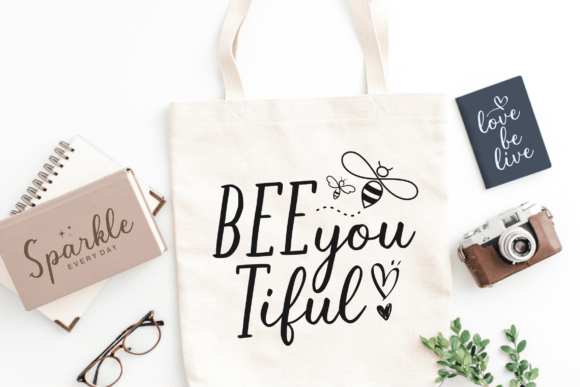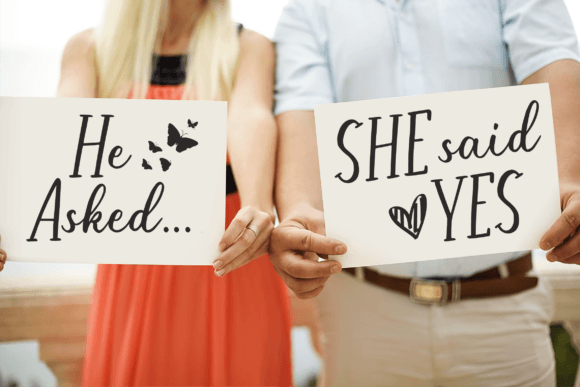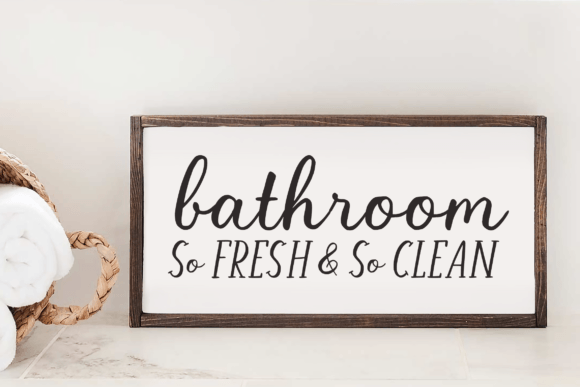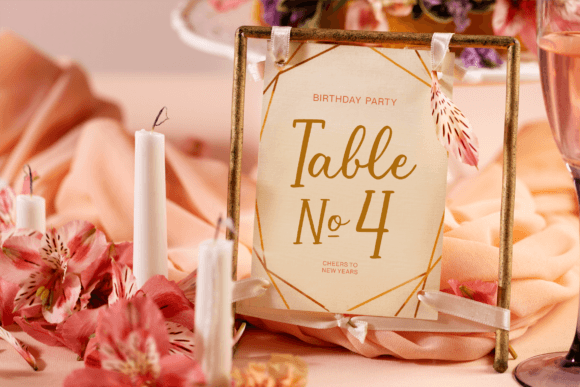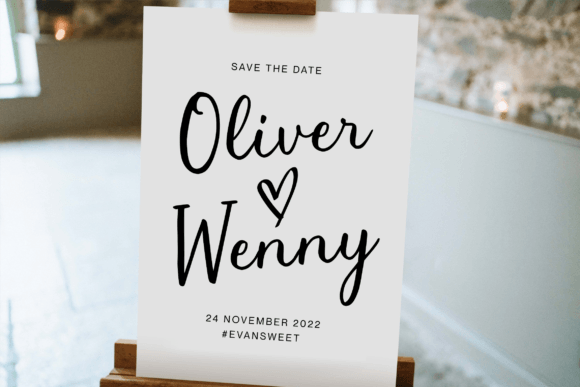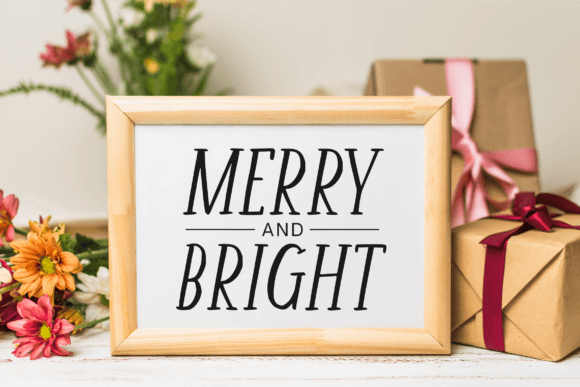
Anything Moment Font: The Perfect Script Font for Creative Projects
Are you a designer or crafter looking for a charming script font to elevate your creative projects? Look no further than Anything Moment Font. This beautiful font is perfect for product packaging, branding projects, magazines, social media, weddings, or just used to express words above the background. In this article, we’ll dive into the features and benefits of Anything Moment Font and explore how it can add a touch of elegance to your designs.
What is Anything Moment Font?
Anything Moment Font is a script font that exudes charm and sophistication. Its elegant and flowing lines make it perfect for a variety of creative projects, from romantic wedding invitations to stylish product packaging. The font is designed to be highly versatile, making it suitable for use in both digital and print designs.
Key Features of Anything Moment Font
- Charming Script Style: Anything Moment Font features a beautiful script style that adds a touch of elegance to any design.
- Highly Versatile: The font is perfect for a variety of creative projects, including product packaging, branding projects, magazines, social media, and weddings.
- Elegant and Flowing Lines: The font’s elegant and flowing lines make it perfect for designs that require a touch of sophistication.
- Easy to Read: Despite its elegant style, Anything Moment Font is easy to read, making it perfect for use in both digital and print designs.
Benefits of Using Anything Moment Font
There are many benefits to using Anything Moment Font in your creative projects. Here are just a few:
- Adds Elegance to Your Designs: Anything Moment Font adds a touch of elegance and sophistication to any design, making it perfect for projects that require a high-end look.
- Perfect for Branding Projects: The font’s charming script style makes it perfect for use in branding projects, helping to create a consistent and recognizable brand identity.
- Great for Social Media: Anything Moment Font is perfect for use in social media graphics, helping to add a touch of elegance and sophistication to your online presence.
Creative Ways to Use Anything Moment Font
There are many creative ways to use Anything Moment Font in your designs. Here are just a few ideas to get you started:
- Wedding Invitations: Use Anything Moment Font to create beautiful and elegant wedding invitations that set the tone for your special day.
- Product Packaging: Add a touch of elegance to your product packaging with Anything Moment Font, helping to create a memorable and recognizable brand identity.
- Branding Projects: Use Anything Moment Font to create a consistent and recognizable brand identity across all of your marketing materials.
- Social Media Graphics: Add a touch of elegance and sophistication to your social media graphics with Anything Moment Font, helping to create a strong online presence.
Anything Moment Font is a charming script font that is perfect for designers and crafters looking to add a touch of elegance to their creative projects. With its elegant and flowing lines, highly versatile design, and easy-to-read style, Anything Moment Font is perfect for a variety of projects, from product packaging and branding projects to social media graphics and wedding invitations. So why wait? Download Anything Moment Font today and start creating beautiful and elegant designs that will leave a lasting impression.